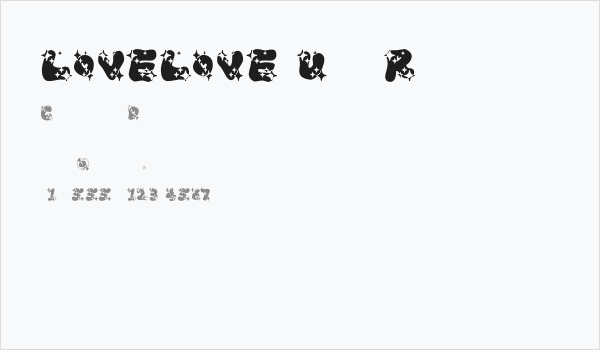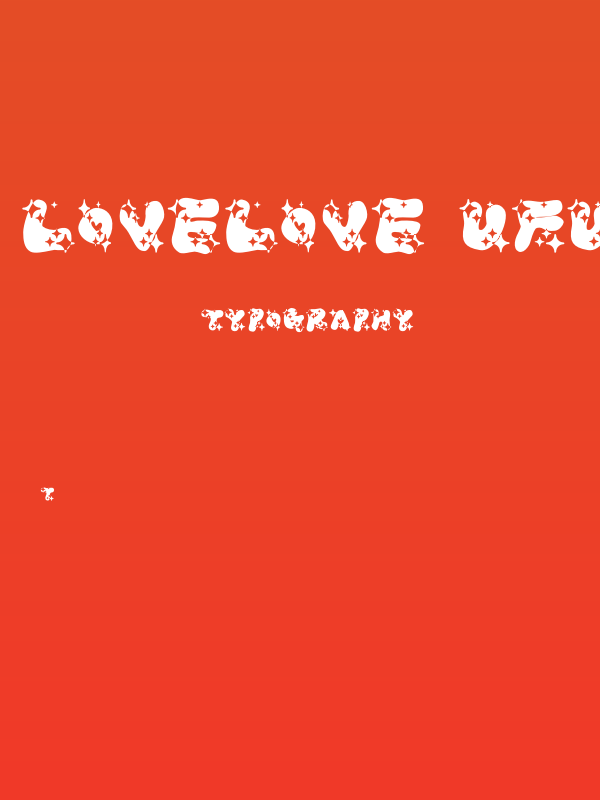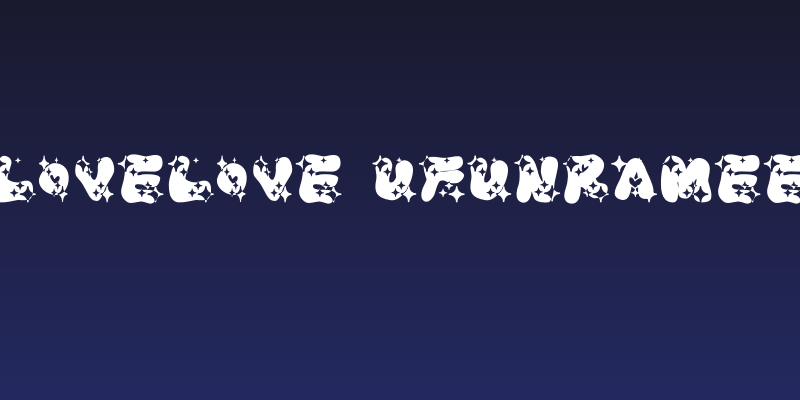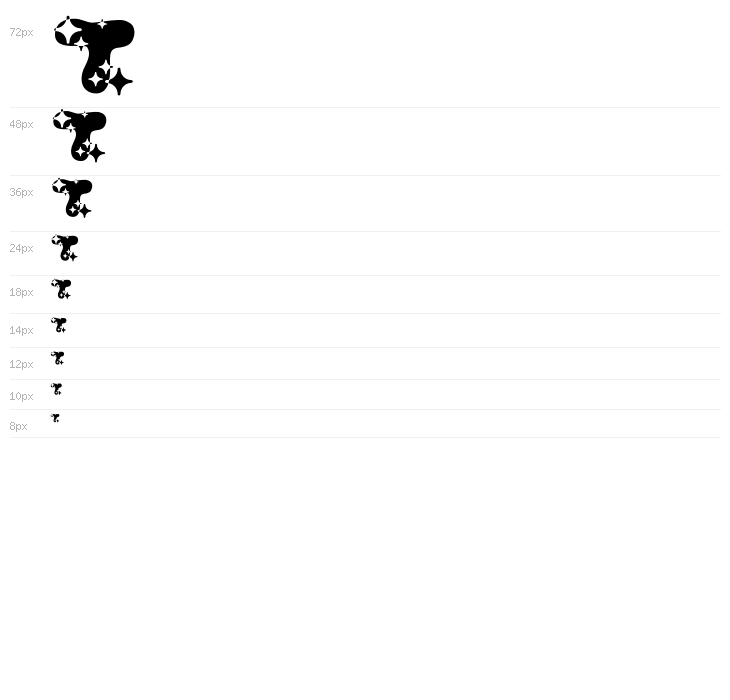
LOVELOVE_UfunRamee Font
LOVELOVE_UfunRamee Description
This playful and decorative font features bold, rounded characters adorned with star-like embellishments, creating a whimsical and eye-catching appearance. The letters are thick and substantial, with a consistent weight throughout, making them stand out prominently. The unique design incorporates small star shapes within and around each character, adding a touch of sparkle and fantasy. This font is ideal for projects that require a fun and lively aesthetic, such as children's book covers, party invitations, or playful branding. Its distinctive style ensures that it captures attention and conveys a sense of joy and creativity.
| Proposed Projects | Ideal for children's books, party invitations, and playful branding. |